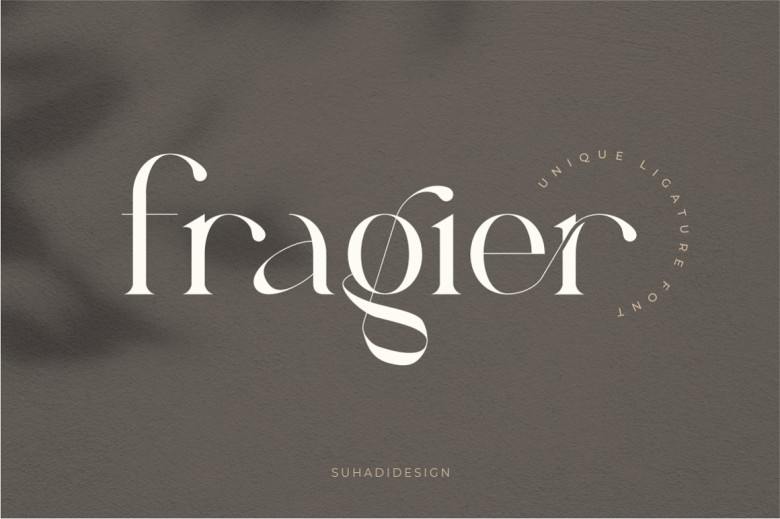
Fragier Font
Fragier is a unique ligature serif font, brought by a modern style that has its place in the market. This font is simple, elegant, classy, ​​readable, stylish, and, of course, easy to use! Fragier is the right choice for beauty brands, magazines, newspapers, books, brand names, branding, brands, quotes, cover albums, etc.
Fragier Unique Ligature Serif Font